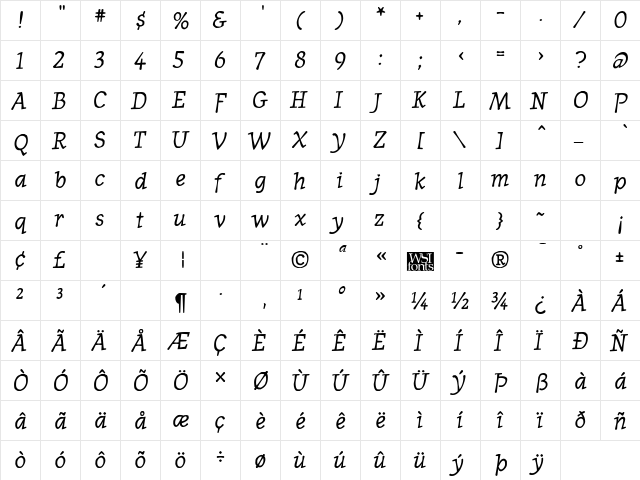
OldNews Bold Italic
Design Context for OldNews Typeface
OldNews offers clean, dependable letterforms without strong stylistic allegiance, making it a practical choice for designers who need flexibility. The slanted form adds forward momentum and visual energy. Its bold stroke weight gives it real presence on the page.